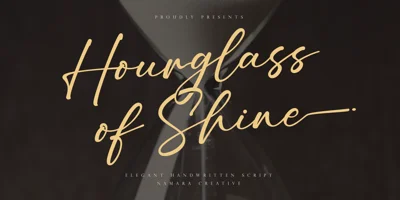
Hourglass of Shine Font
Hourglass of Shine Font is perfect for luxury jewelry brands, premium timepiece marketing, elegant evening event invitations, sophisticated spa and wellness centers, high-end beauty product packaging, glamorous fashion campaigns, exclusive anniversary celebrations, and radiant lifestyle brand communications.
What makes Hourglass of Shine Font truly exciting is its mesmerizing ability to capture the essence of time's precious beauty and luminous elegance through gracefully flowing letterforms that shimmer with sophisticated glamour and timeless allure. This stunning typeface features delicate curves with subtle luminous characteristics that instantly evoke the magical interplay of light and time, creating an atmosphere of luxury, refinement, and radiant beauty that makes it the perfect choice for brands celebrating precious moments, timeless elegance, and the brilliant sparkle of life's most treasured experiences.
The Hourglass of Shine Font family includes regular, light, bold, and ornamental variations, complemented by glowing effects and brilliant alternates that enhance the luminous atmosphere, providing designers with comprehensive tools for creating dazzling brand experiences and radiant communications that captivate audiences seeking luxury and illuminated sophistication.
Luxury brands and premium service providers will discover that Hourglass of Shine Font transforms ordinary messaging into brilliant invitations that create lasting impressions among discerning clientele who appreciate the finer things in life. This versatile typeface excels in both intimate luxury applications and grand celebratory displays, maintaining its radiant character while delivering maximum sparkle across all elegant contexts.
The font's luminous construction demonstrates exceptional attention to both visual brilliance and sophisticated elegance, with carefully balanced proportions that ensure glowing presence while maintaining superior readability in luxury environments. From jewelry boutiques to anniversary invitations, this radiant typeface maintains its brilliant appeal while providing the sophistication needed for comprehensive luxury brand systems. Premium brands appreciate how this font effortlessly communicates brilliance, timeless beauty, and distinguished American luxury design excellence through superior illuminated typography.